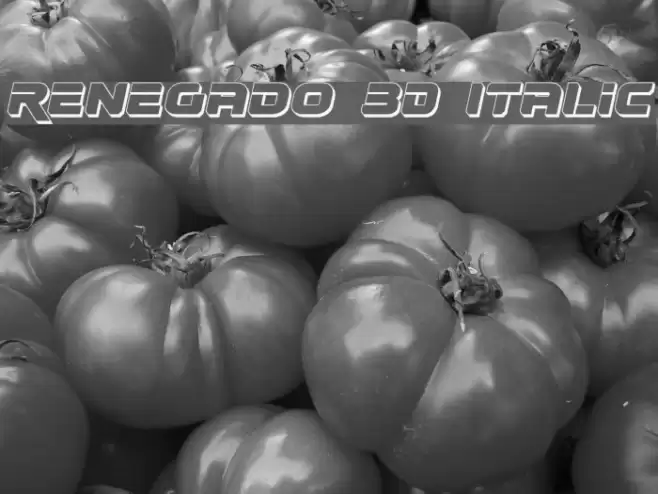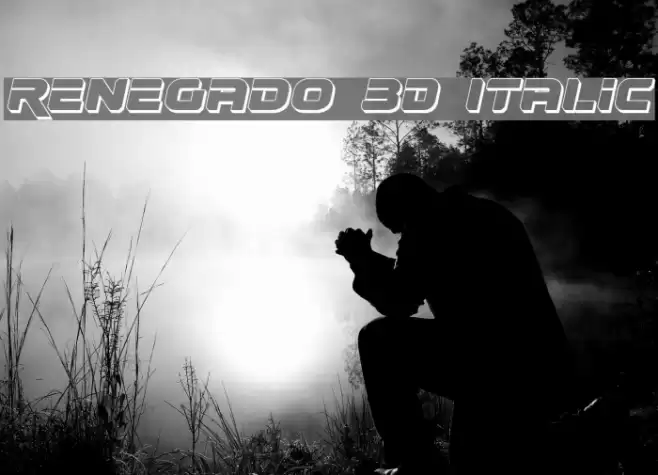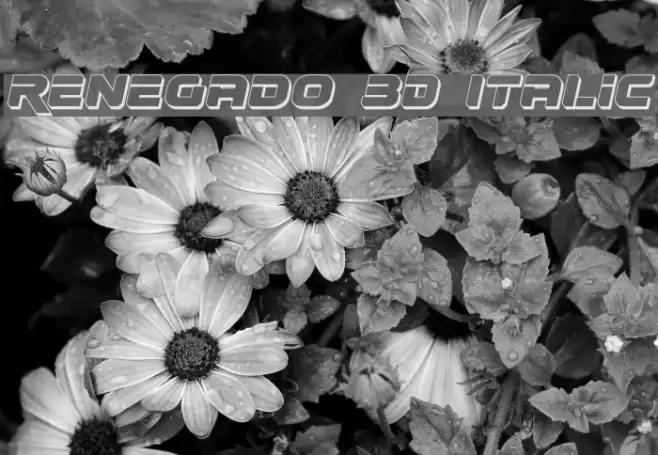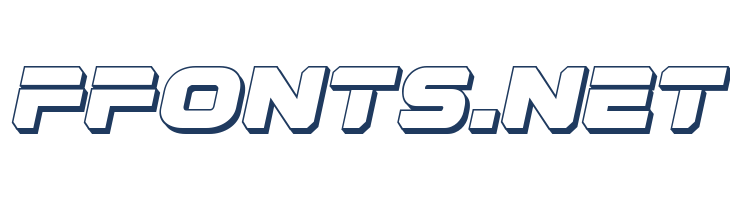
Renegado 3D Italic Font
Renegado 3D Italic Description
This font features a bold, three-dimensional design with a distinct italic slant, giving it a dynamic and futuristic appearance. The characters are outlined, creating a sense of depth and shadow that enhances its 3D effect. The geometric shapes and sharp angles contribute to a modern and tech-inspired aesthetic. The uppercase and lowercase letters maintain a consistent style, while the numbers and special characters are designed to match the overall theme. This font is eye-catching and suitable for projects that require a strong visual impact.
A bold, 3D italic font with a futuristic and dynamic style from Uncategorized fonts.
- Proposed Projects: Ideal for video game titles, tech branding, futuristic posters, and digital media.